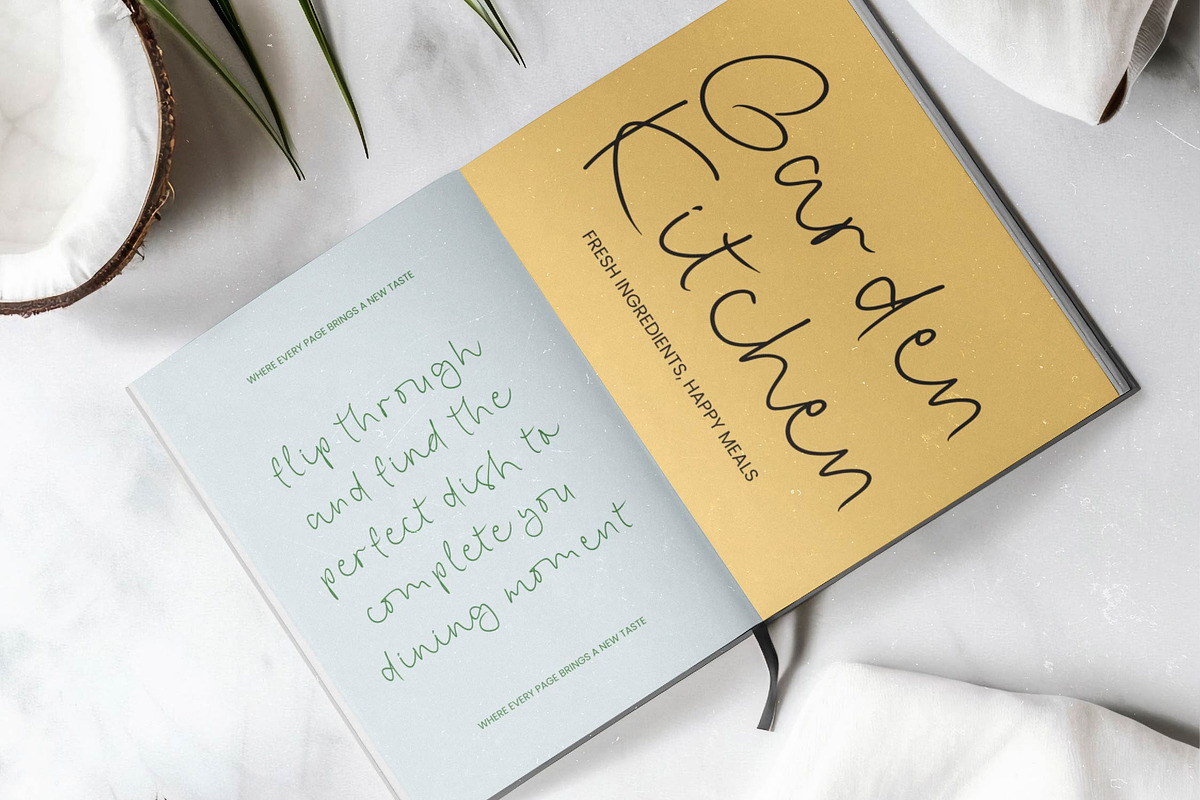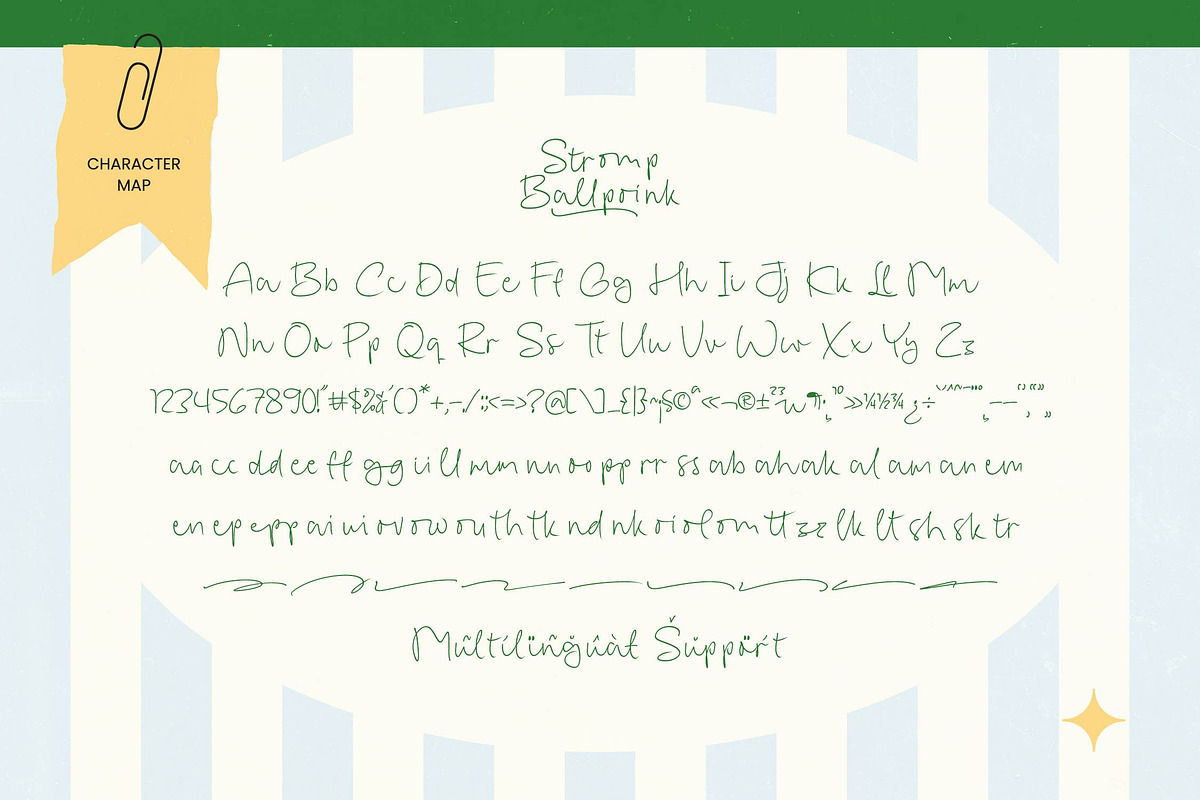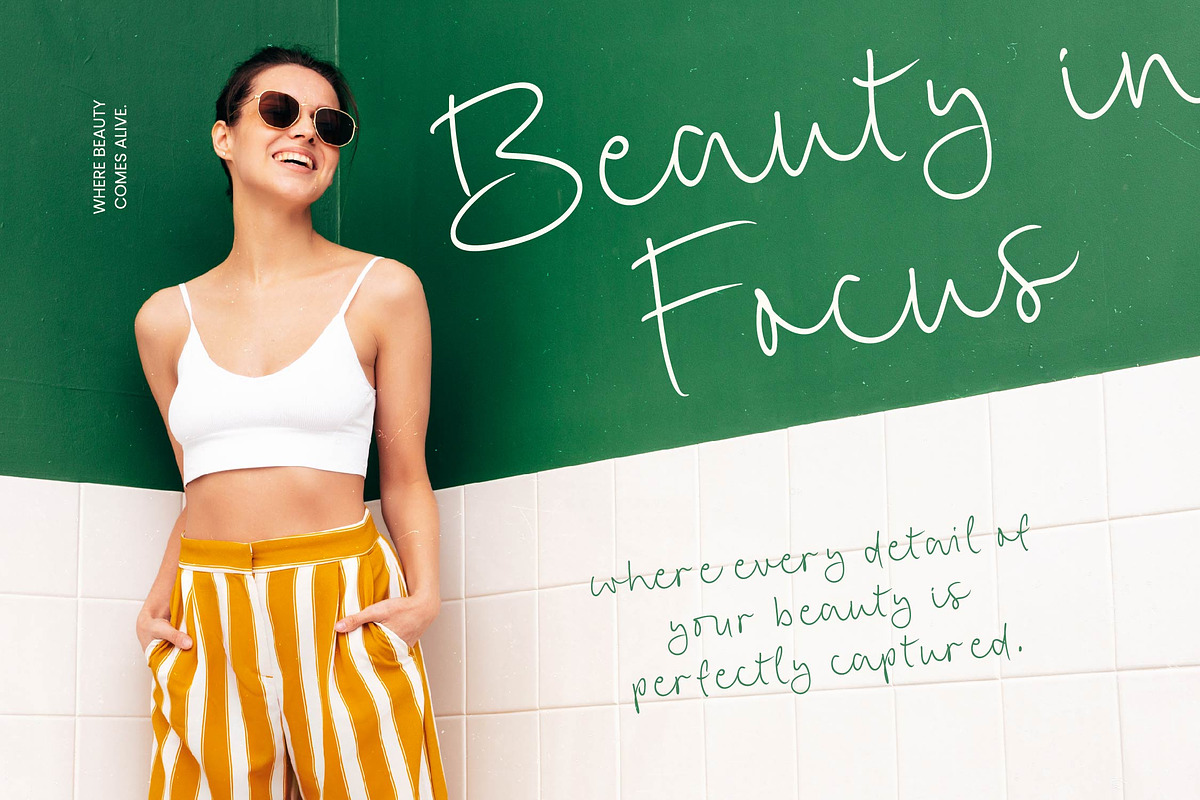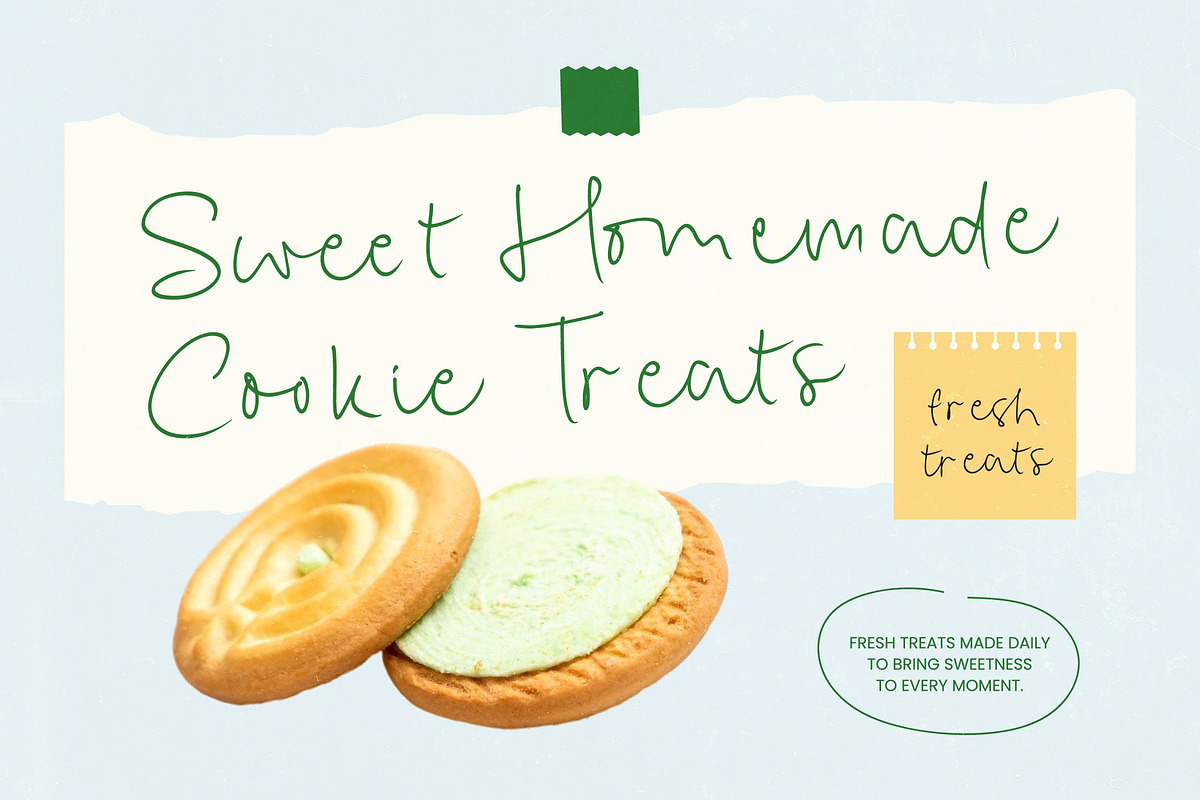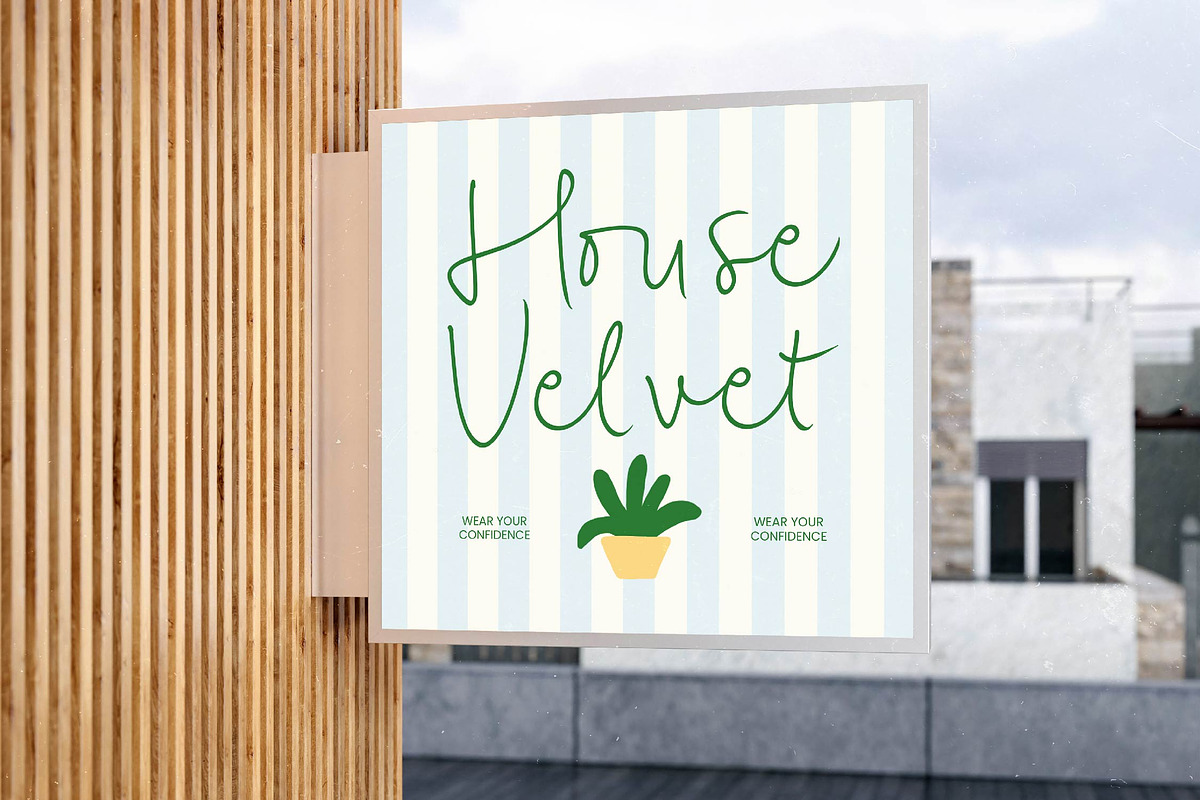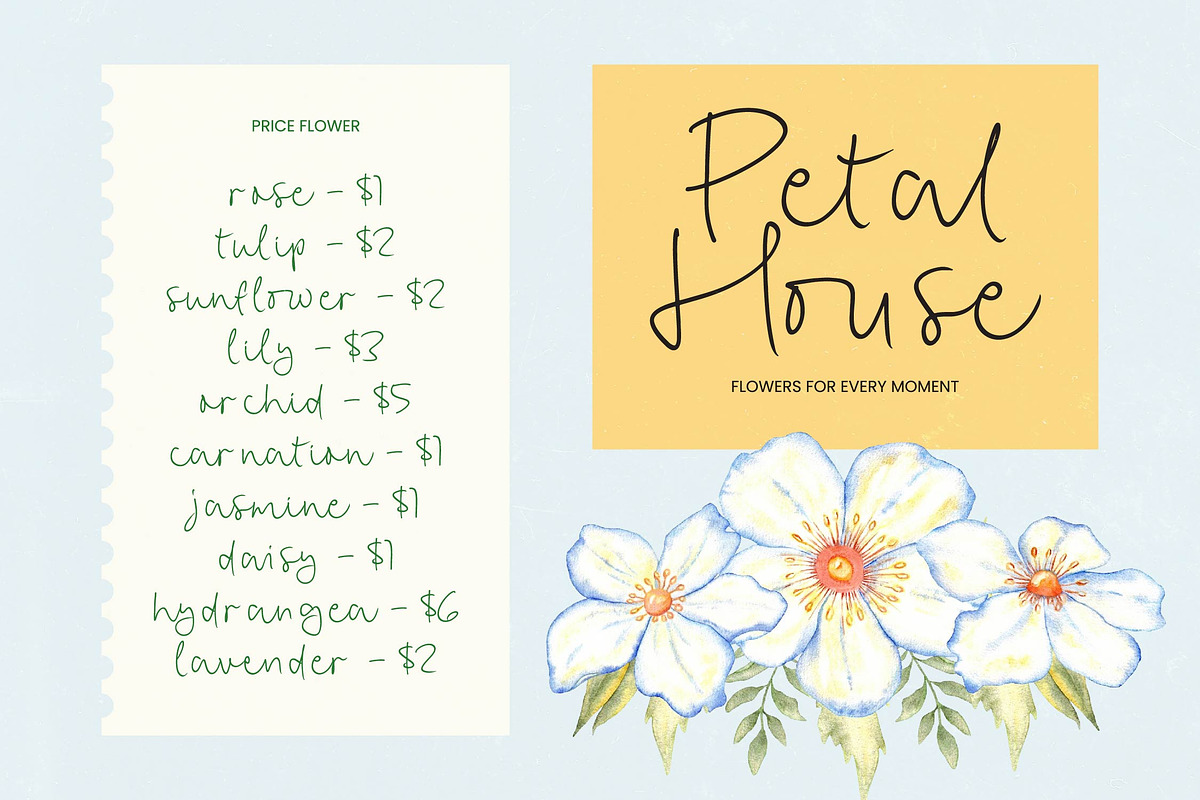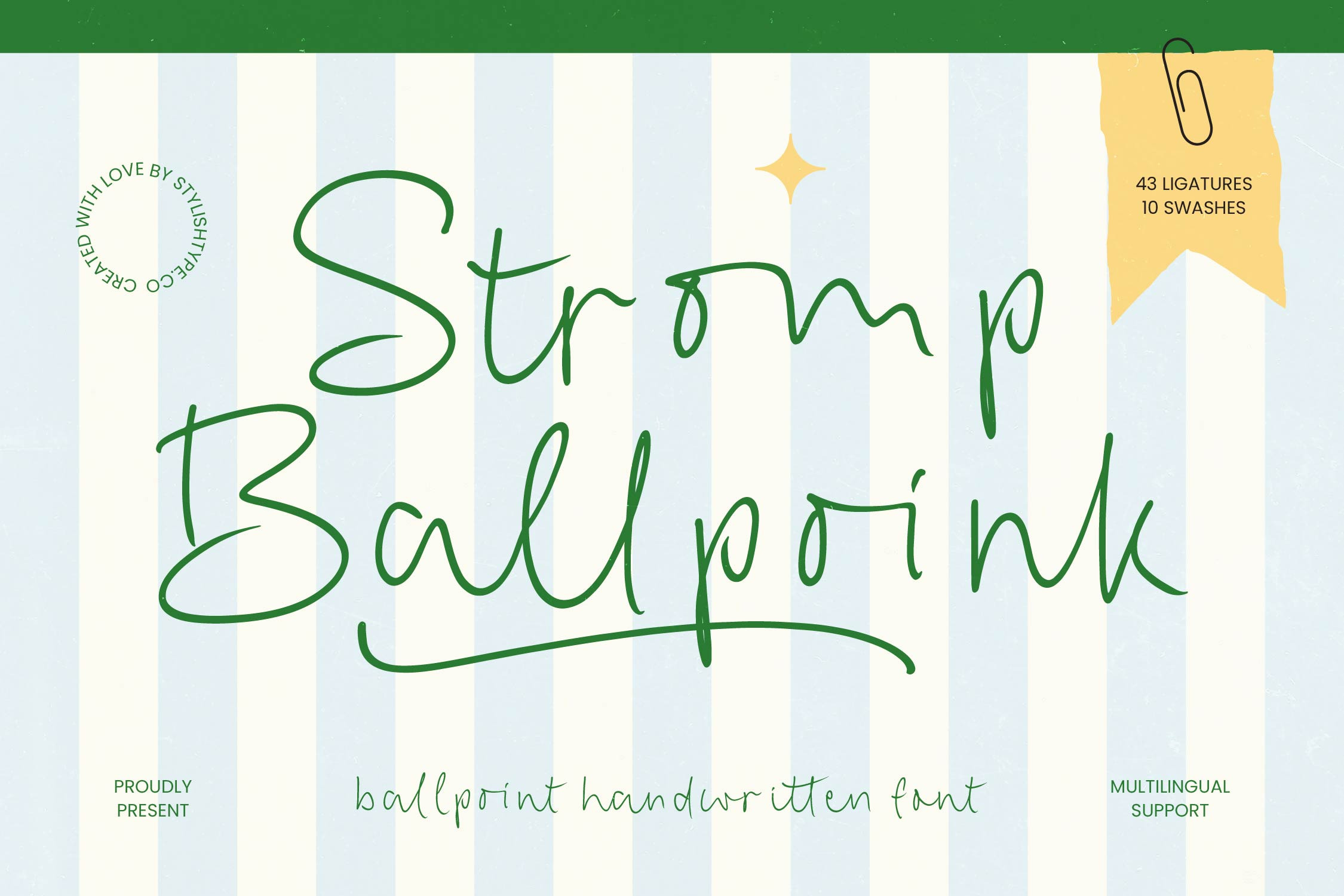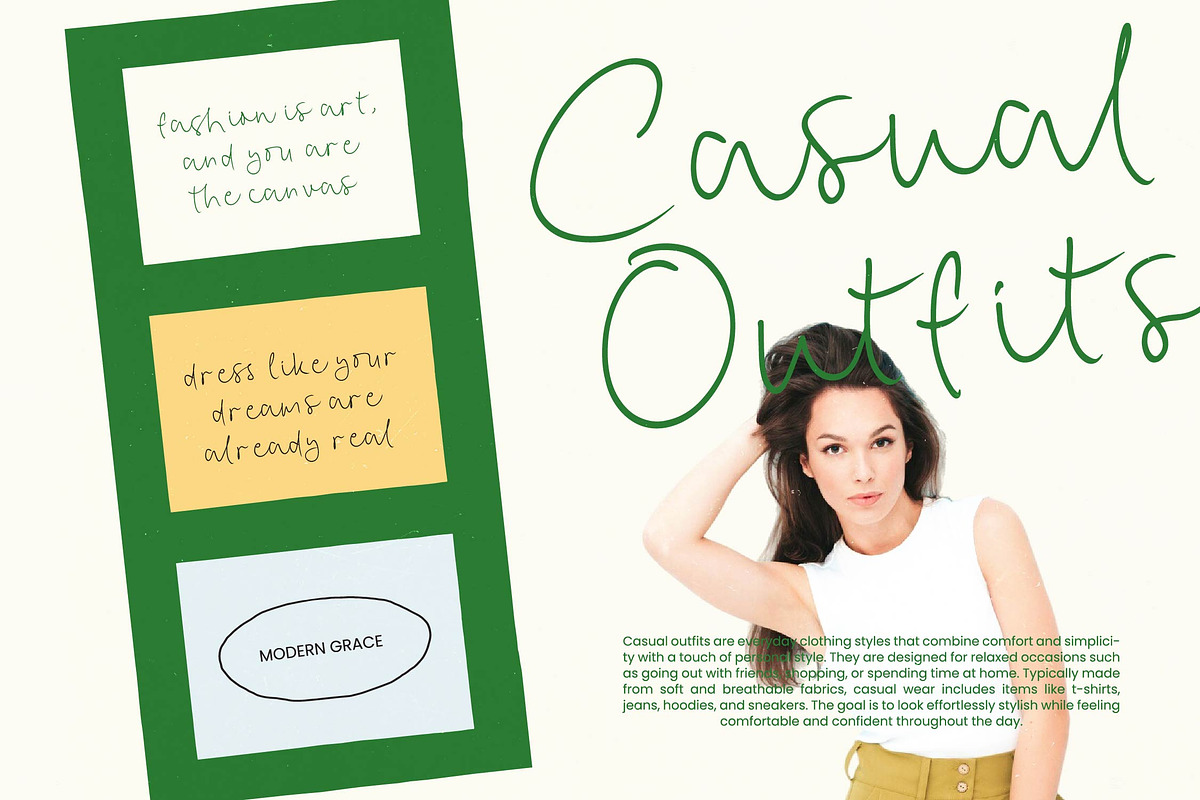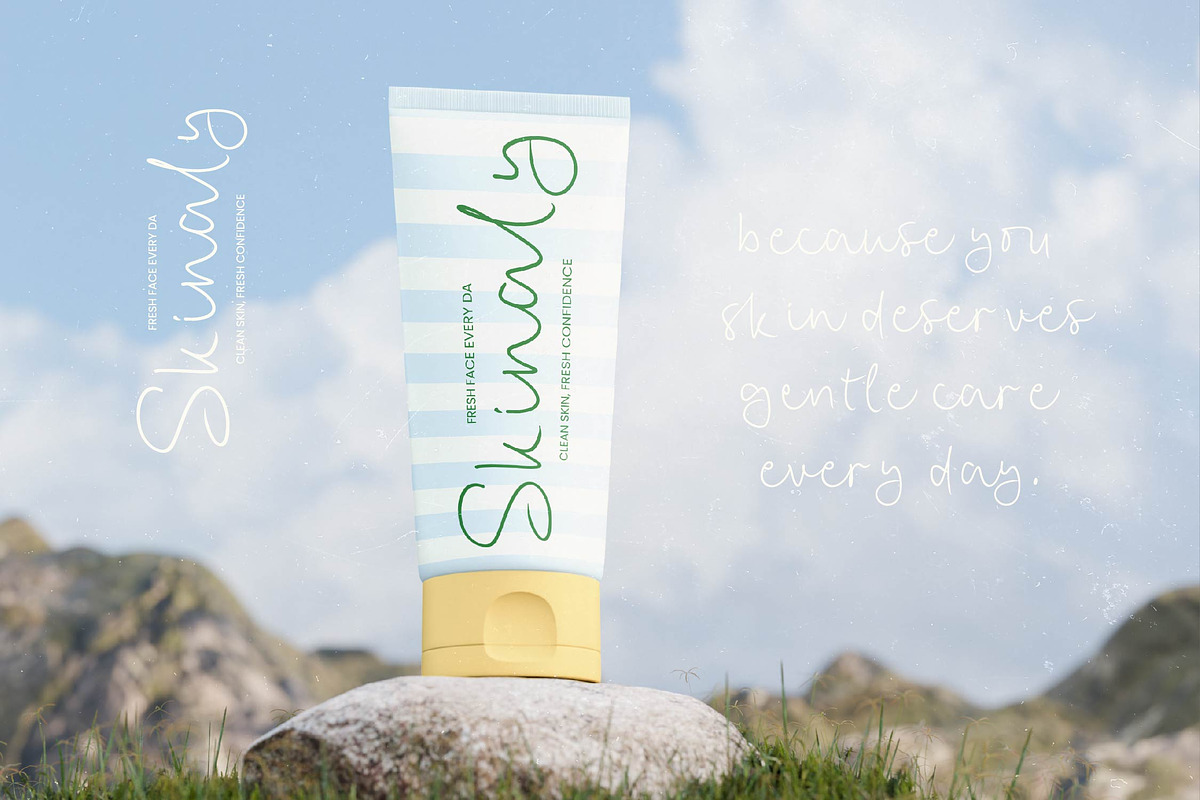
Stromp Ballpoink Handwritten Font
Stromp Ballpoink - Ballpoint Handwritten Font
Elevate your creative projects with a touch of authentic human expression and effortless style. Stromp Ballpoink - Ballpoint Handwritten Font captures the organic handwritten charm of a classic ink pen, delivering a monolinear aesthetic that feels both personal and professional. Its casual elegance makes it an ideal choice for designers looking to inject a natural flow into their digital work, ensuring that every word resonates with a genuine, hand-drawn feel.
Unlocking unparalleled customization, this typeface offers a wealth of stylistic features that bring your text to life. Stromp Ballpoink - Ballpoint Handwritten Font is packed with 43 custom ligatures and 10 expressive swashes, allowing for a truly bespoke typography experience. These intricate details ensure that the font maintains a seamless script appearance, avoiding the repetitive look of standard digital types and providing a dynamic visual rhythm that enhances any composition.
Expand your creative reach across borders with ease and technical reliability. With its extensive multilingual support, Stromp Ballpoink - Ballpoint Handwritten Font adapts seamlessly across global markets, making it incredibly versatile for international projects. This global accessibility ensures your brand voice remains consistent and impactful, regardless of the language, making Stromp Ballpoink - Ballpoint Handwritten Font a powerhouse tool for modern, worldwide communication.
Discover the perfect typographic partner for high-impact visual storytelling and niche marketing. This font is perfect for luxury branding, lifestyle packaging design, and engaging social media graphics where a personal touch is paramount. Whether utilized in editorial layouts or boutique stationery, Stromp Ballpoink - Ballpoint Handwritten Font provides the distinctive personality needed to stand out in a crowded marketplace, making it a must-have asset for every professional designer’s toolkit.